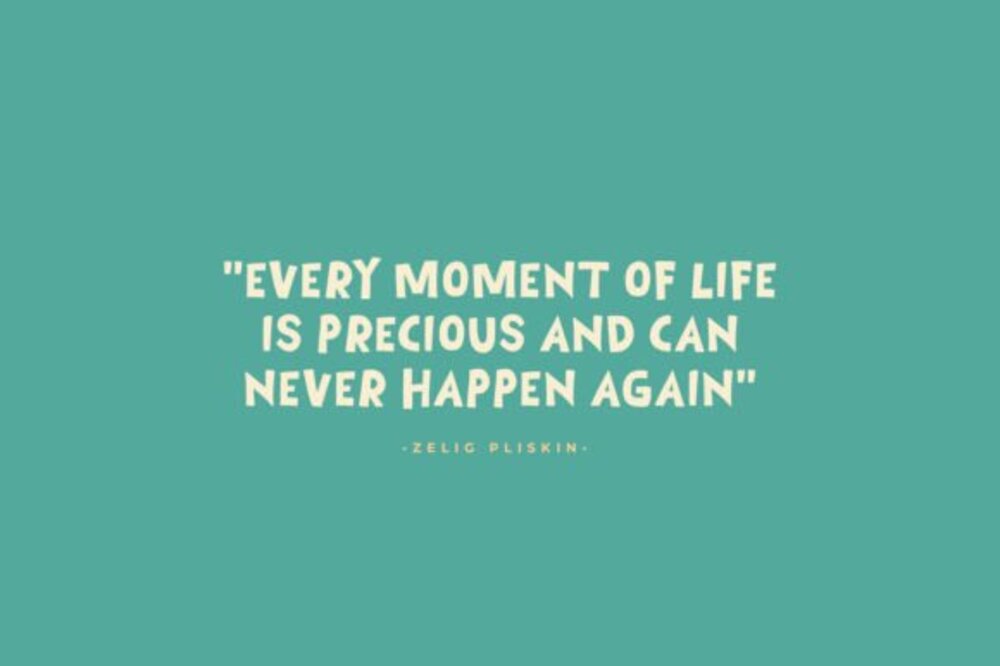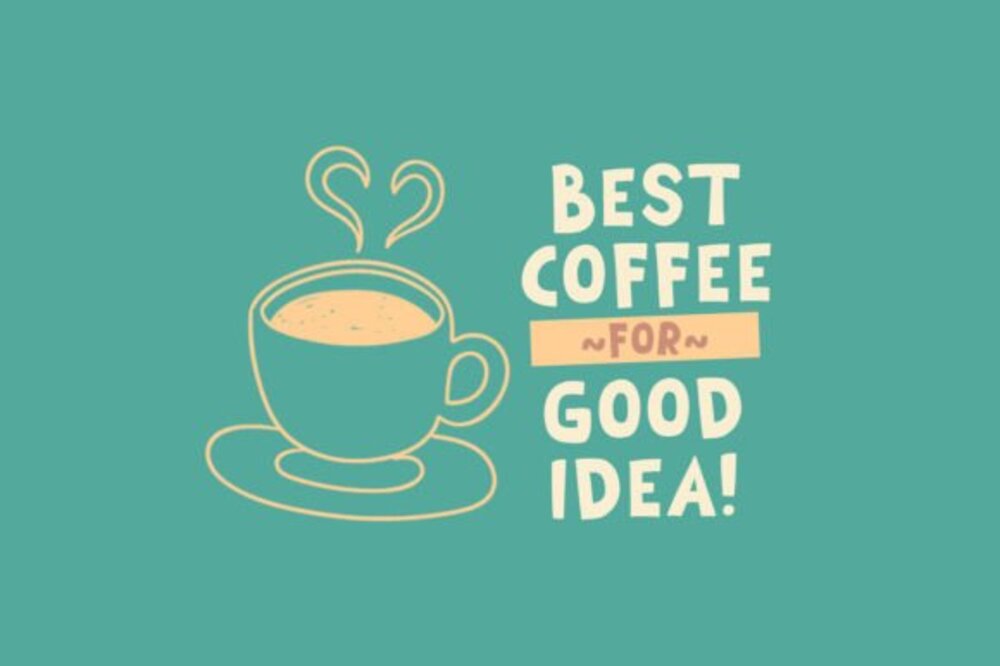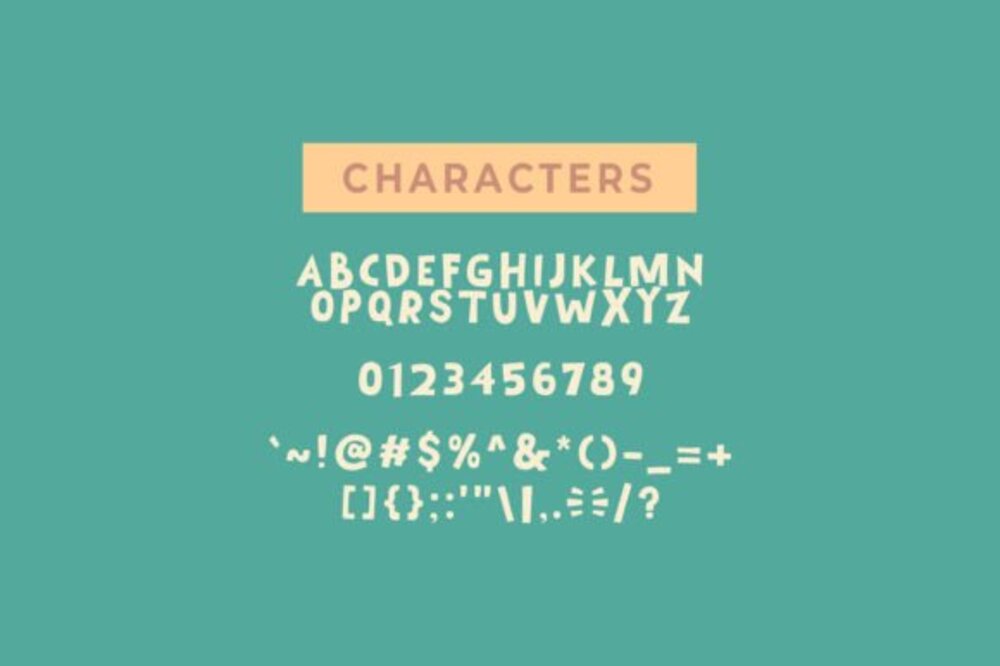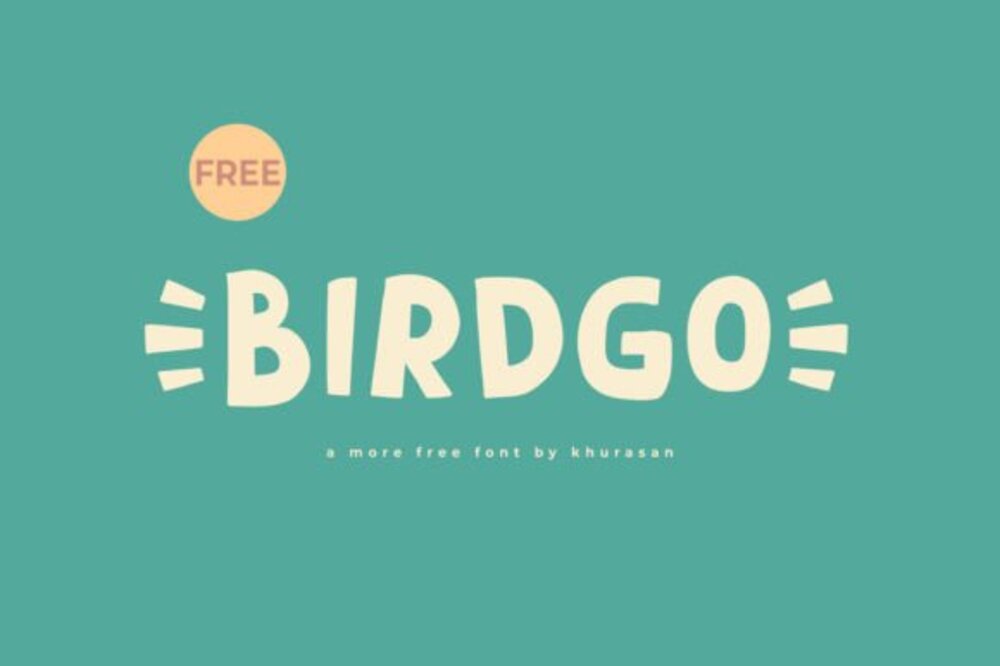
Birdgo Font
Birdgo font is a sleek and contemporary typeface inspired by the elegance of flight and nature’s fluidity. Its clean lines and slightly rounded edges create a harmonious balance between modernity and approachability. Perfect for branding, headlines, and digital projects, Birdgo offers versatility with its professional yet friendly vibe. Whether in bold or light styles, it adds a touch of sophistication and charm to any design.